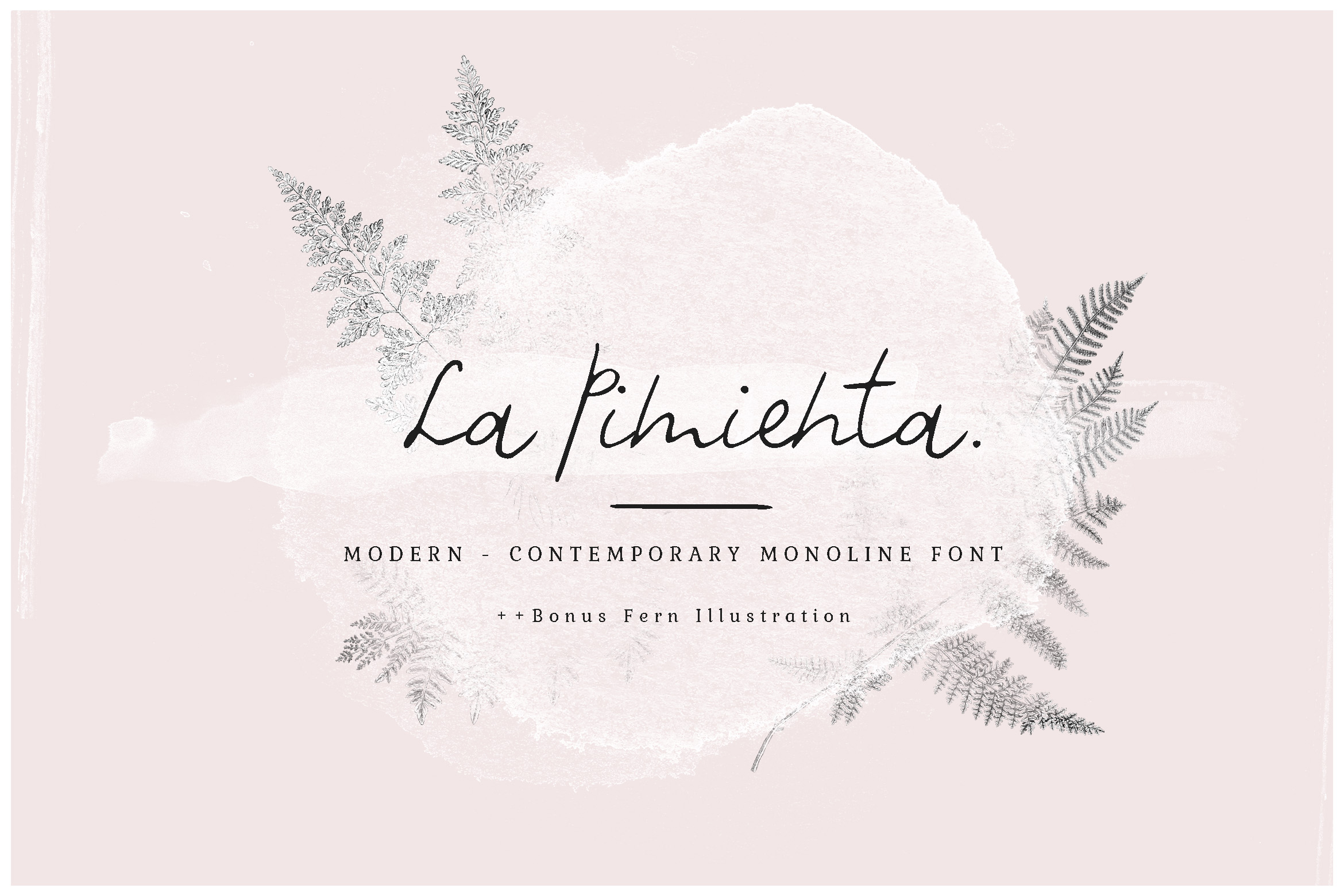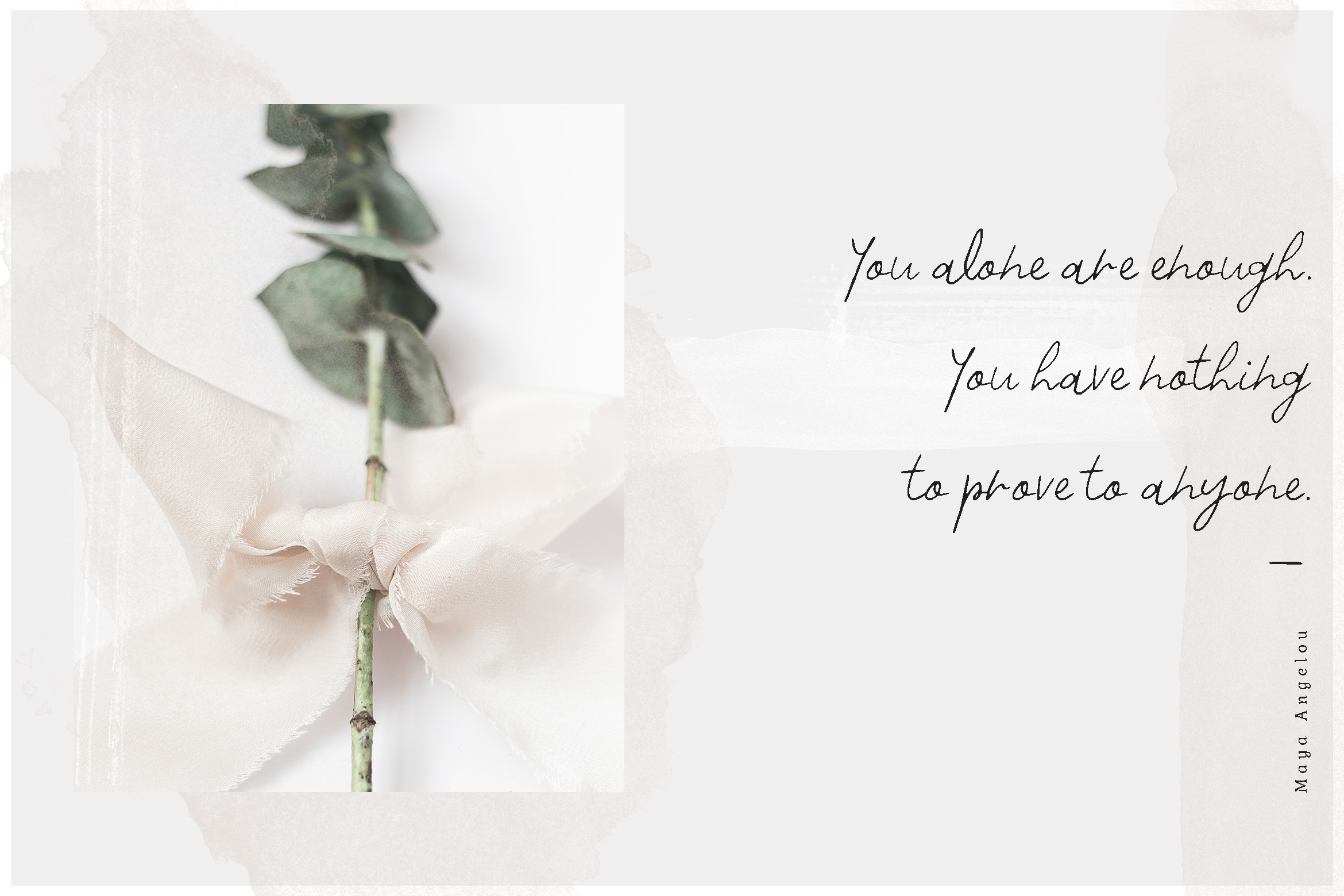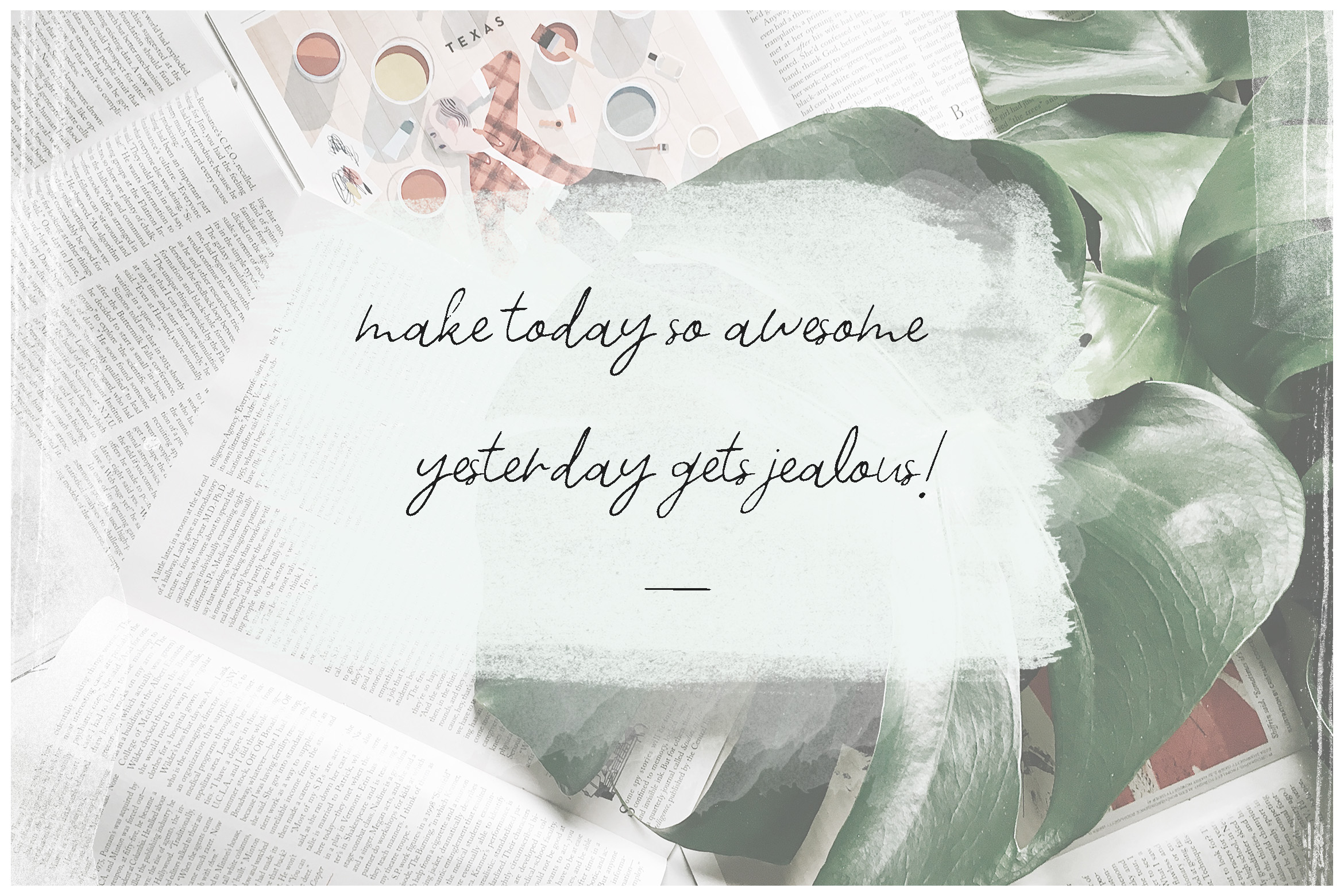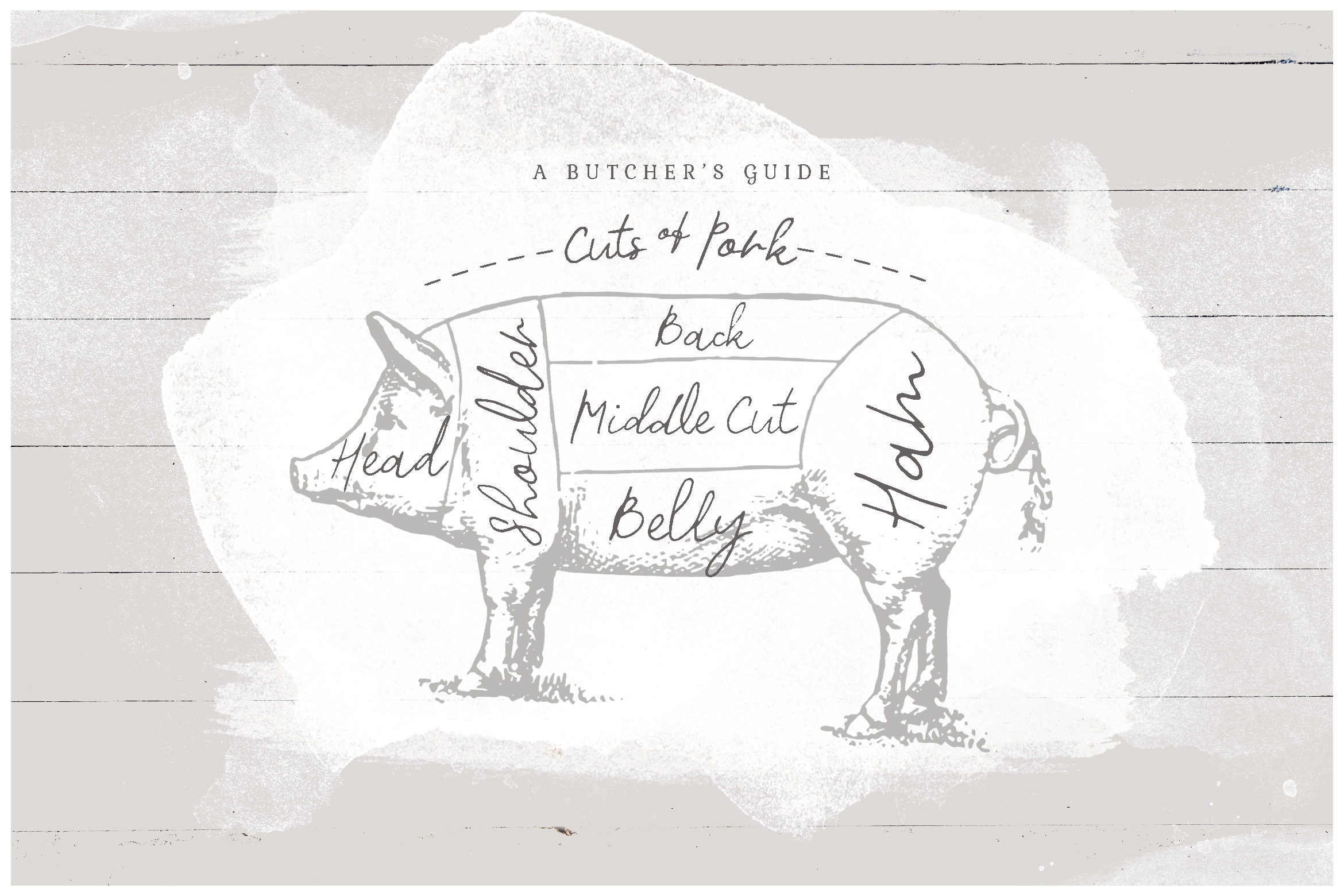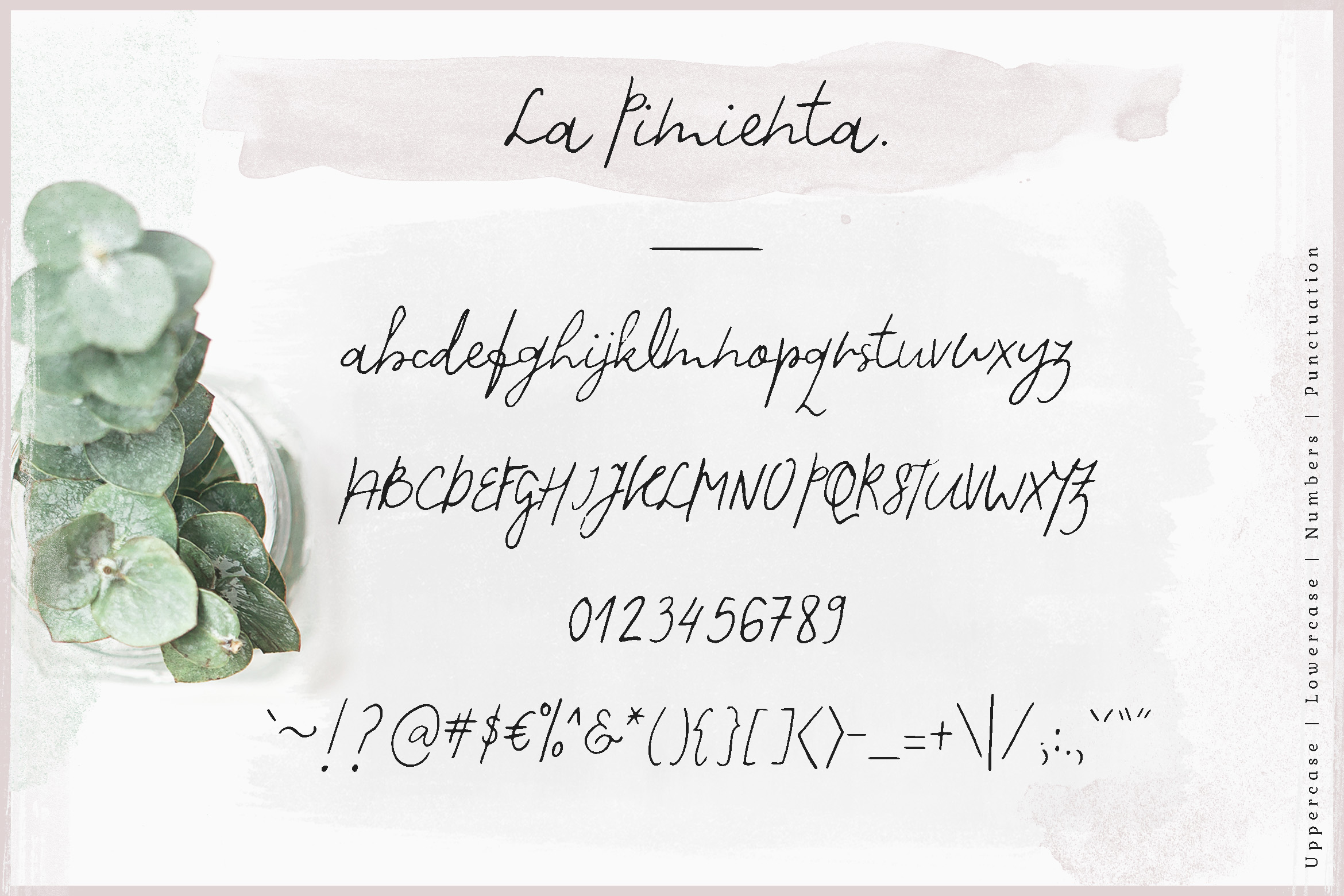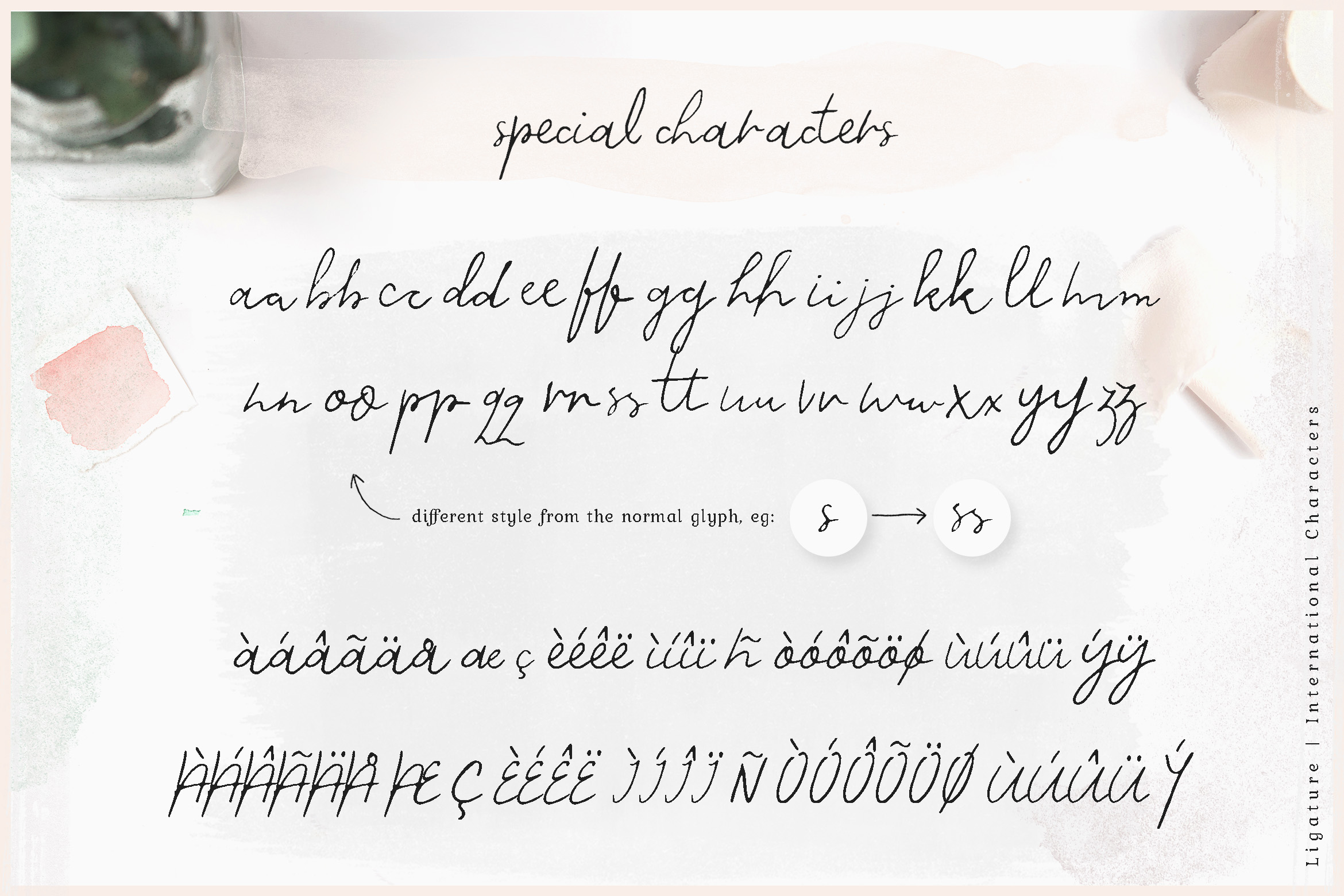
La Pimienta Font
About La Pimienta Font
La Pimienta is a modern, clean, and sophisticated monoline script font. This gorgeous script can be used for a wide range of beautiful and feminine designs. And as an added bonus, there are a few illustrations included in the download!